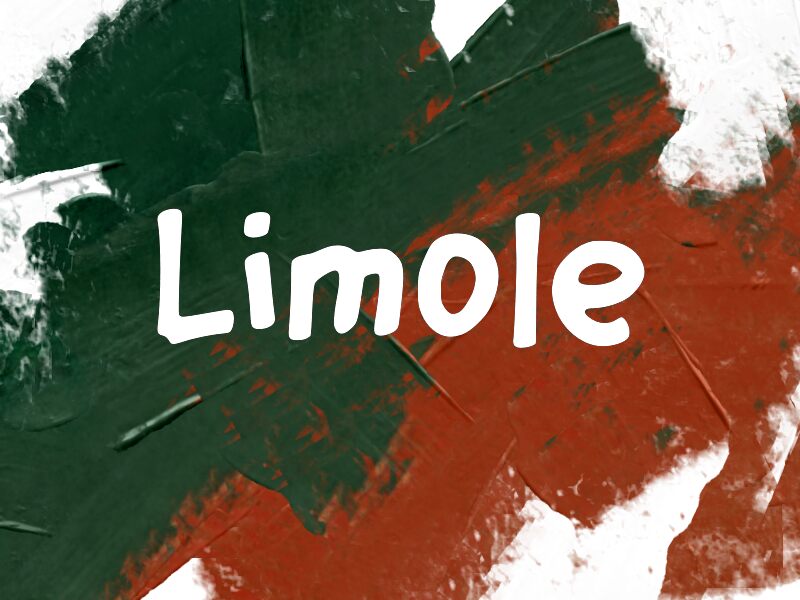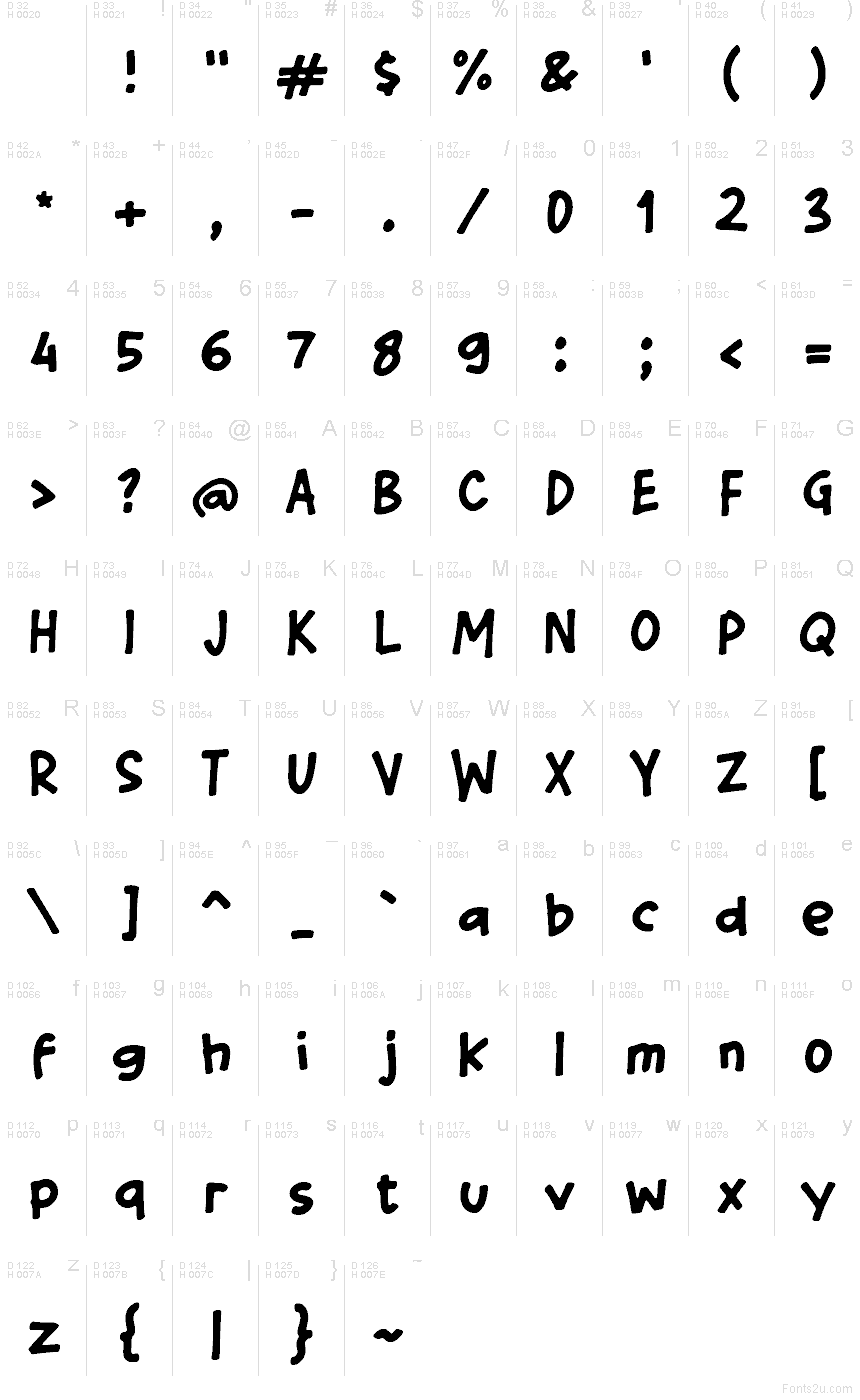
Limole
Limole font by wep is a free cartoon display typeface that looks like it was drawn with a thick, inky marker. Its rounded, slightly wobbly letters feel soft and bouncy, like doodles on a notebook margin, giving every word an easygoing, hand-made charm. The spacing is roomy and relaxed, so Limole stays legible even when you stack words tight or curve them along a path.
Using Limole, this free font shines on kids’ book covers, birthday invitations, playful logos, snack packaging, comic-style posters, and YouTube thumbnails. The chunky strokes grab attention without feeling loud or aggressive, keeping things friendly and fun. For balance, pair Limole with a clean geometric sans serif in smaller body text, and let Limole handle the big, punchy headlines.